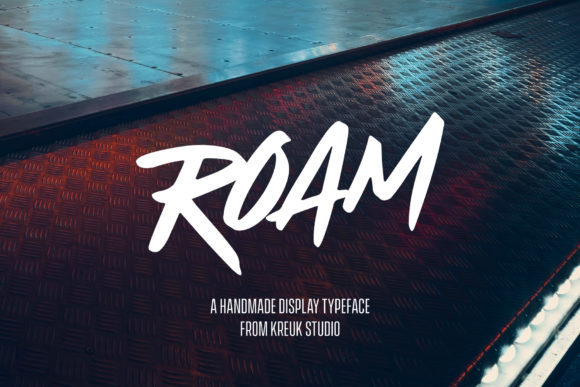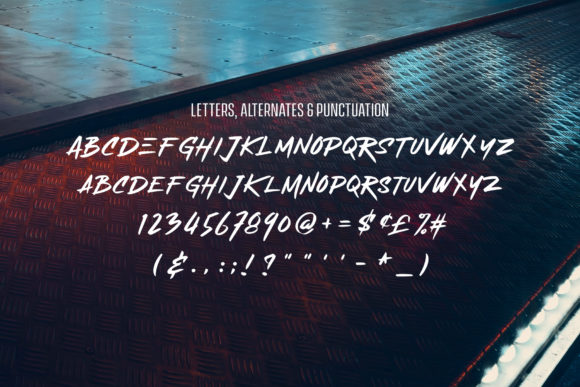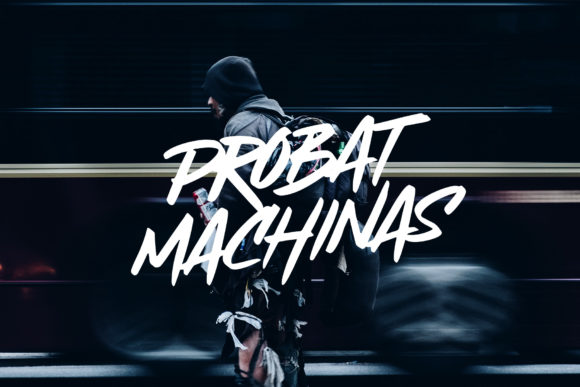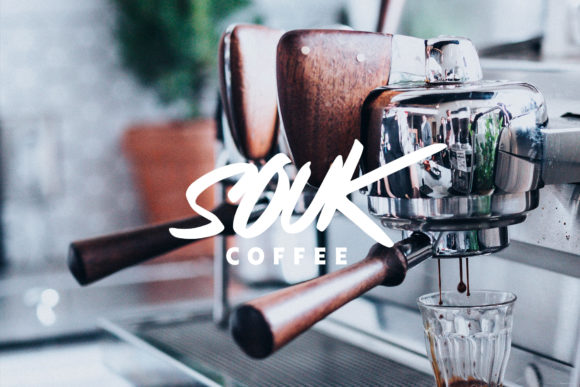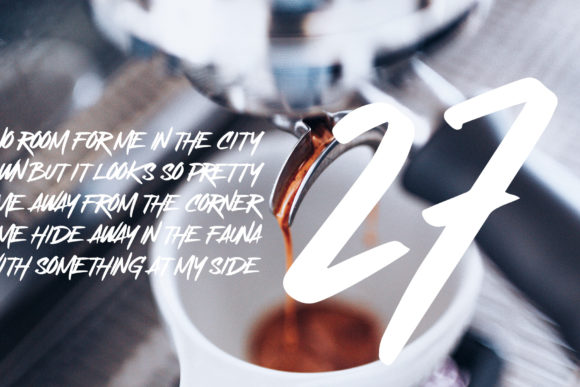
Roam Font
About Roam Font
The Roam is a handwritten display font with a fun, thick brush impression. It has a strong and catchy look which will make any design stand out!
It’s suited for headlines, titles, logos, branding, posters, and much more!